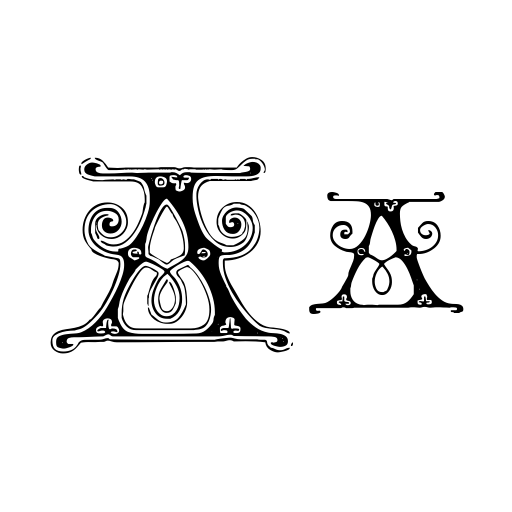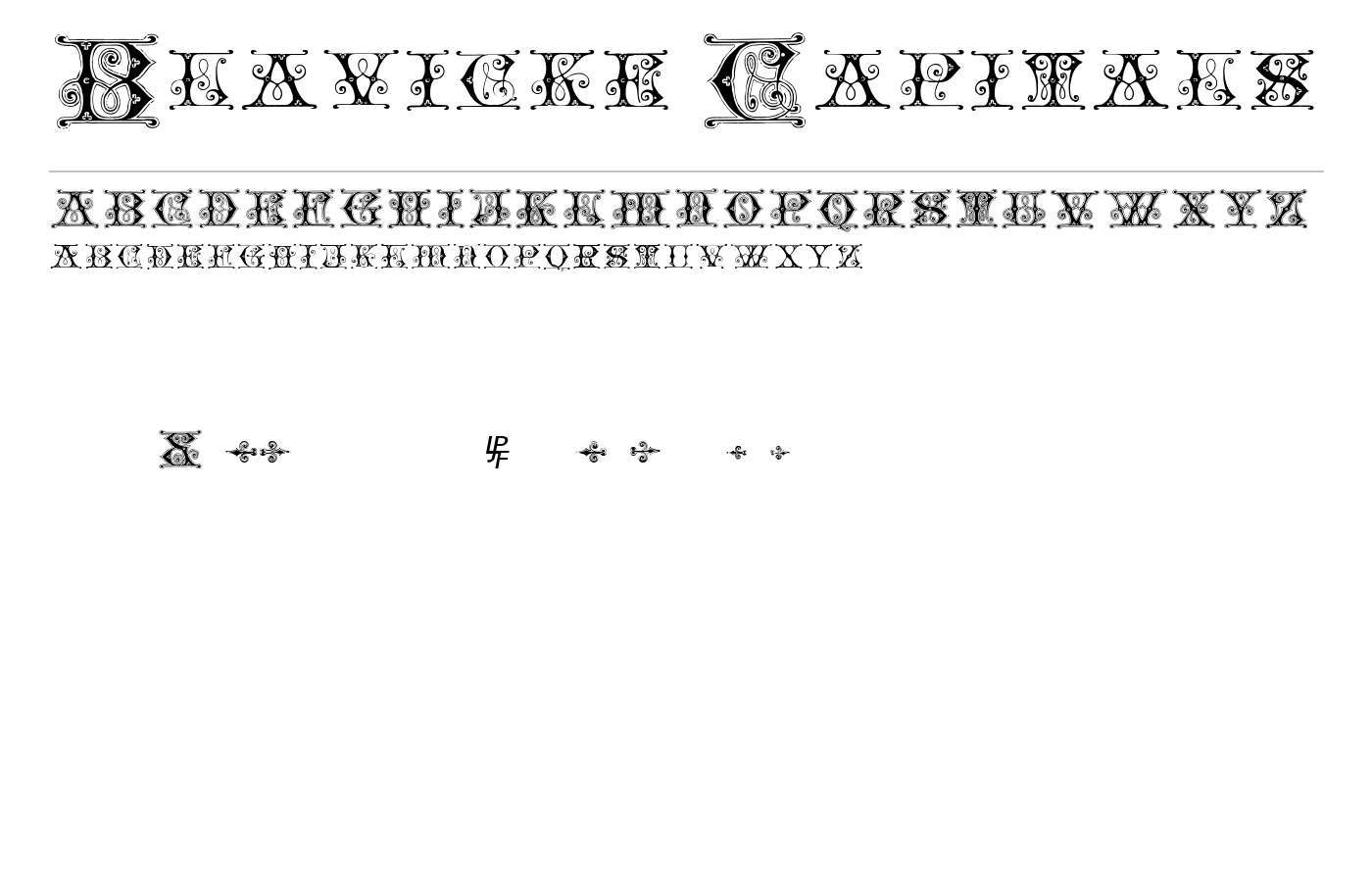
Blavicke Capitals is an ornate serif display font characterized by intricate, decorative details that create a vintage and elegant feel. Its high contrast strokes and elaborate flourishes make it perfect for decorative headings, logos, and branding that aim to evoke a classic or theatrical atmosphere. This font works best in designs where a bold, luxurious statement is needed, especially in vintage-inspired or artistic projects.
Blavicke Capitals Font
About Blavicke Capitals Font